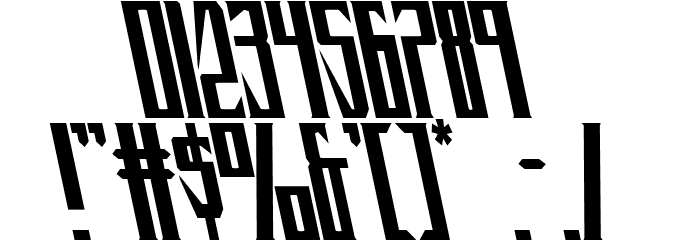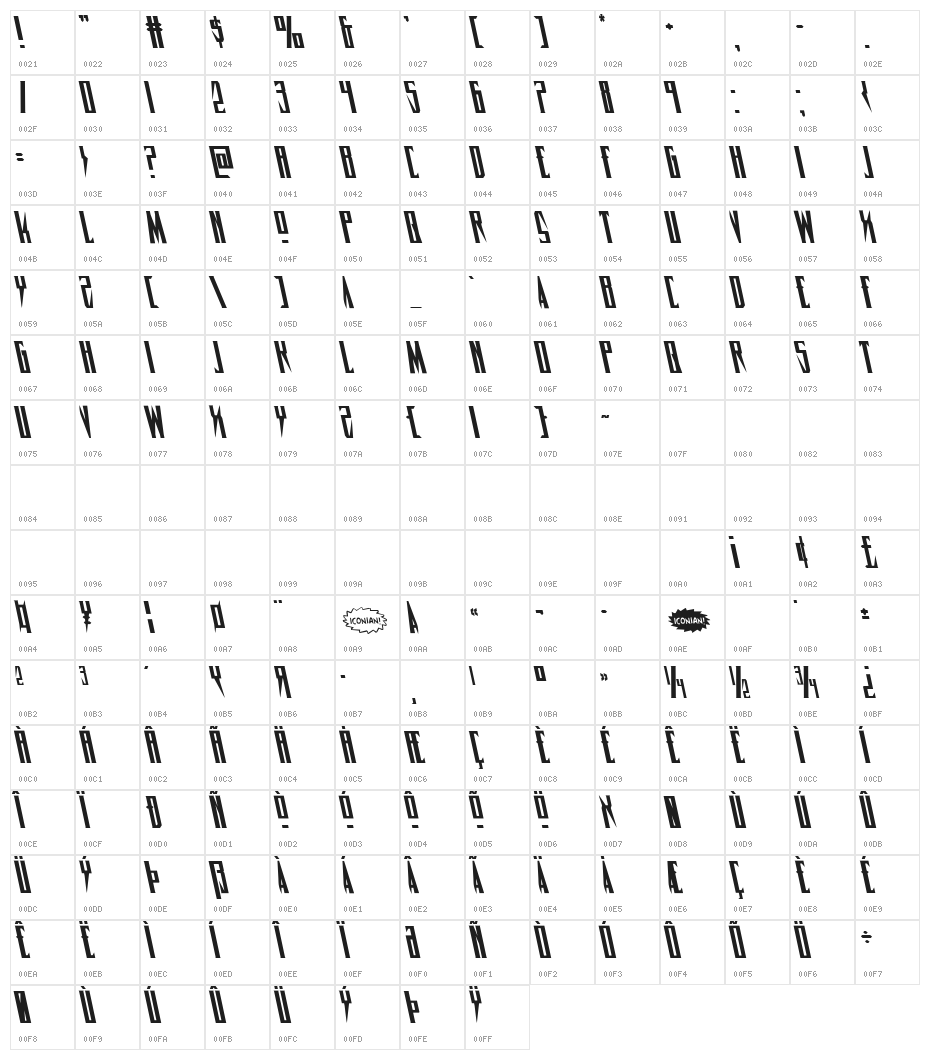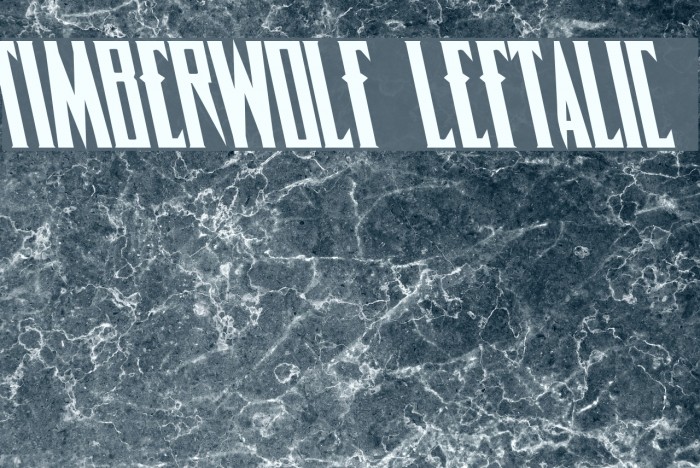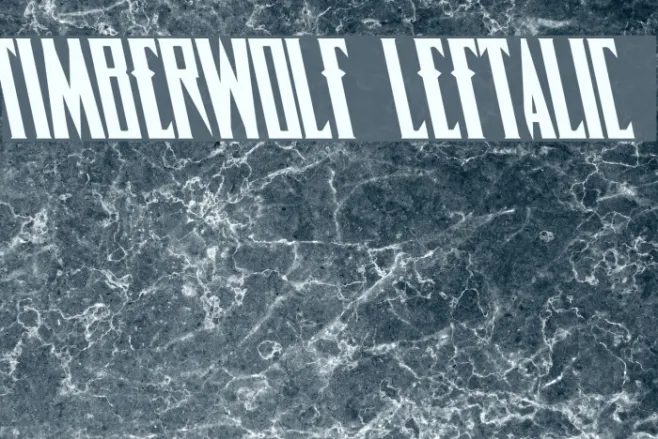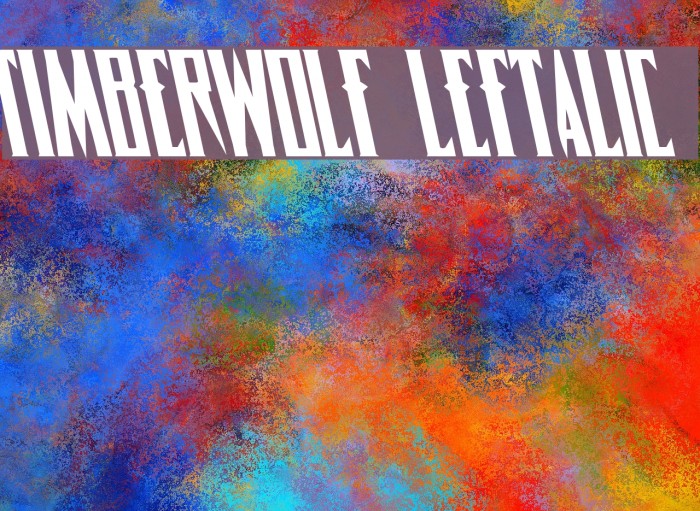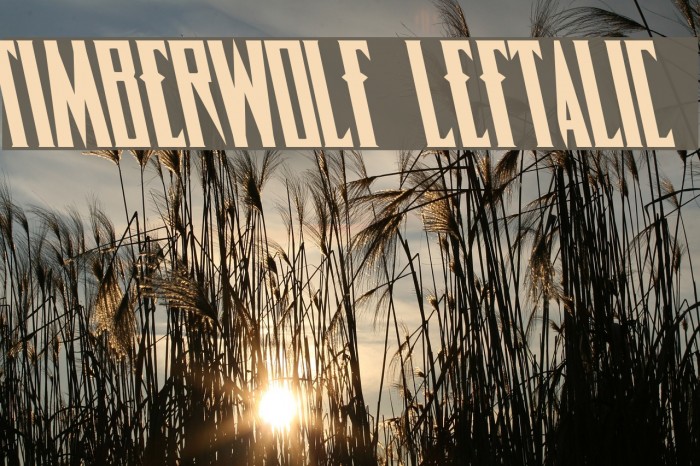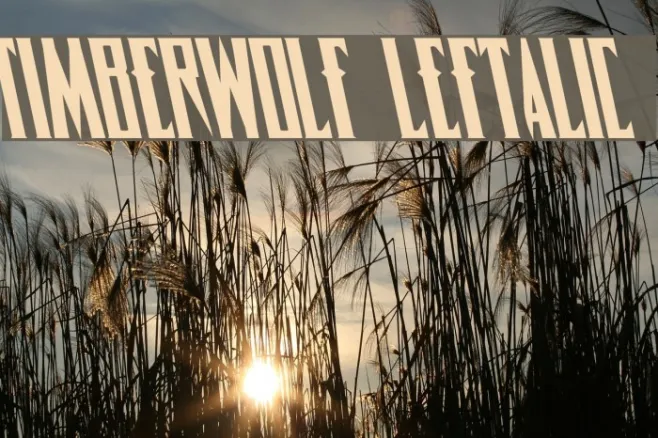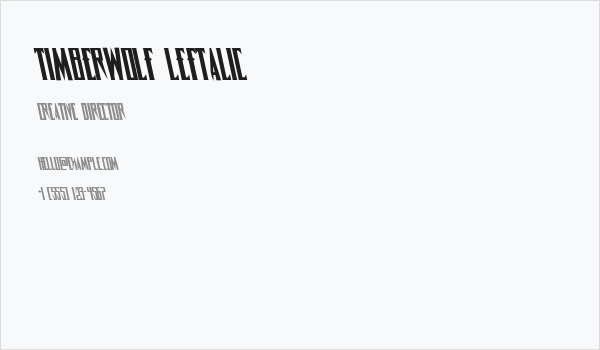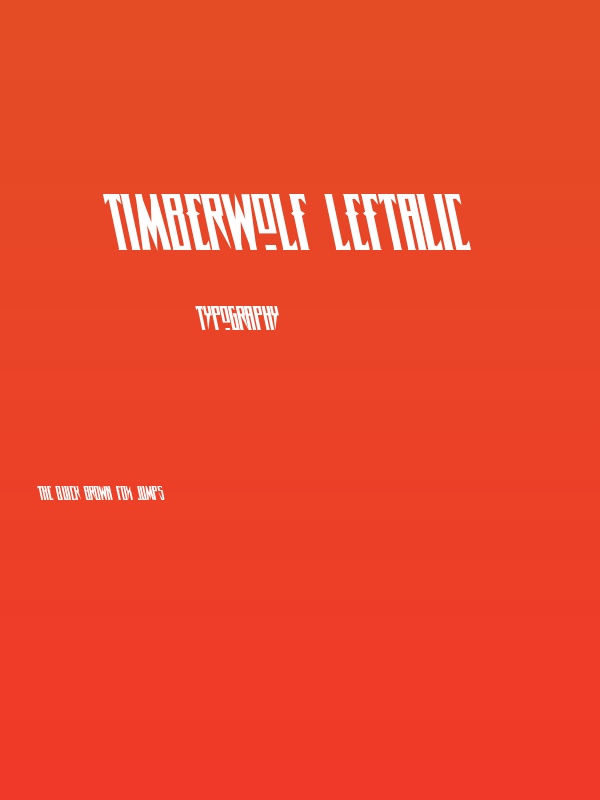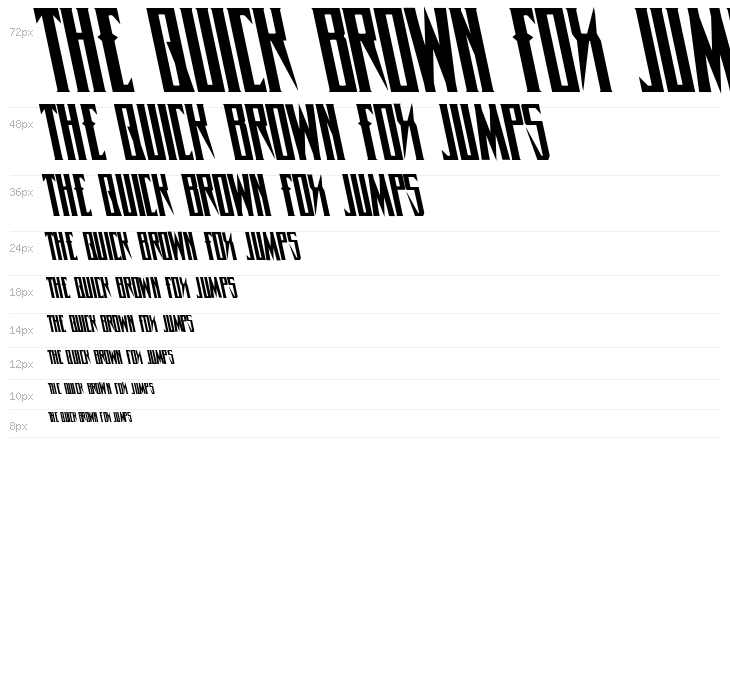
Timberwolf Leftalic Font
Timberwolf Leftalic Description
This font features a bold and striking design with sharp, angular lines and a distinct slant to the left, giving it a dynamic and edgy appearance. The uppercase and lowercase letters maintain a consistent style, with exaggerated serifs and pointed edges that create a sense of movement and aggression. The numbers and special characters are equally bold, ensuring uniformity across all elements. The overall aesthetic is modern and impactful, making it ideal for projects that require a strong visual statement.
| Proposed Projects | Perfect for posters, logos, and branding materials that need a bold, dynamic look. |